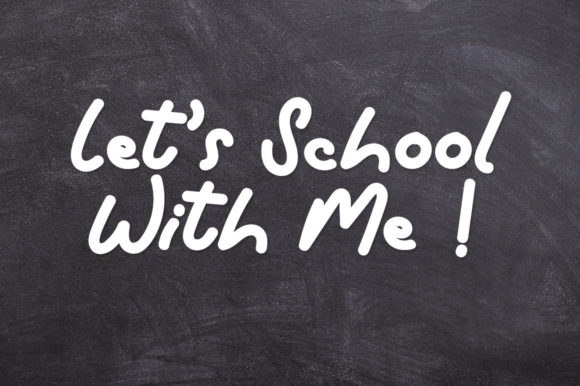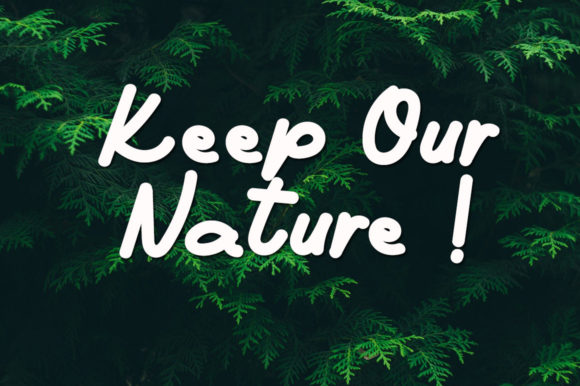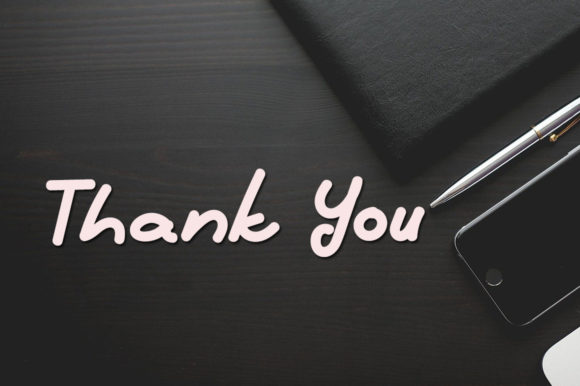
About Marchella Font
Marchella is a beautiful and sweet handwritten font. It is fresh, clean, and elegant. This font will look amazing in a great amount of projects, both formal and informal.